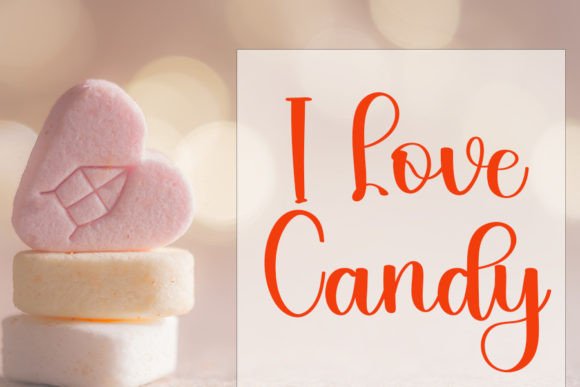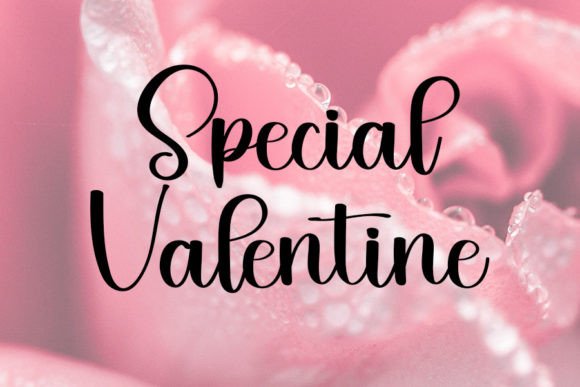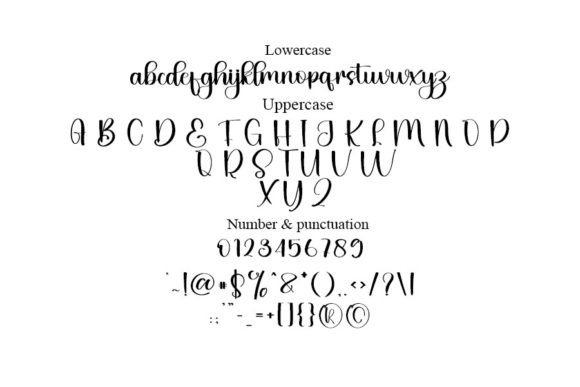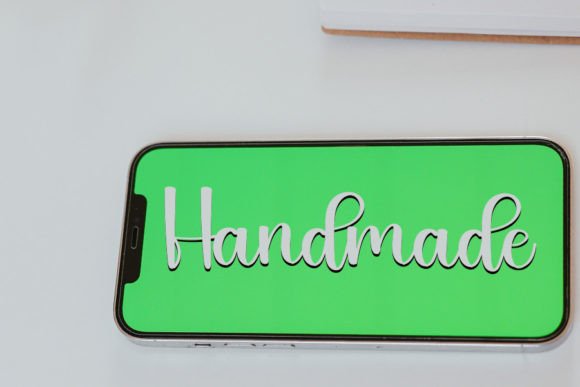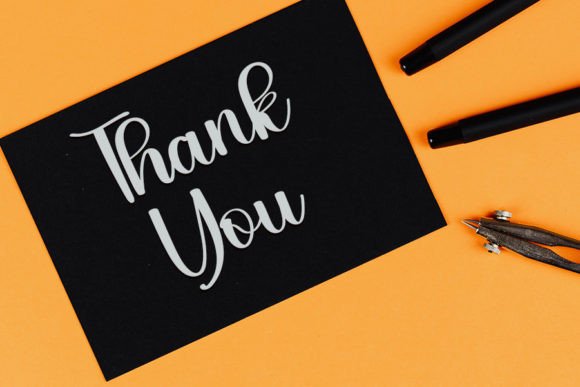
Introduction to Night Vacation Font
Have you ever found yourself daydreaming about your next creative project, only to be stuck on the perfect font to match your vision? I’m sure we’ve all been there, scrolling through font libraries, searching for that elusive perfect match. For me, it was a late-night browsing session that led me to discover the enchanting Night Vacation Font.
As a designer, I can attest that finding the right font can make all the difference in bringing your ideas to life. And that’s exactly what the Night Vacation Font does – it adds a touch of romance and whimsy to any project. With its versatility and high-quality design, it’s no wonder this font has become a go-to choice for designers looking to elevate their creative projects.
Key Features of Night Vacation Font
- Unique, hand-drawn design perfect for creative projects that require a touch of elegance and sophistication.
- High-quality, transparent background allowing for seamless integration into various design elements.
- Includes 1 font style, ideal for projects that require a consistent and cohesive look.
- Designed with a resolution of 300 DPI, ensuring crisp and clear text display in various sizes.
- Perfect for designers looking for a high-quality, unique font to elevate their creative projects.
Honest Review: Night Vacation Font
I recently had the chance to try out the Night Vacation Font, and I have to say it’s been a great addition to my design resource collection. The font’s unique, modern aesthetic is perfect for creative projects that require a touch of sophistication.
- ✨ High-quality design: The font’s crisp lines and clean typography make it a joy to work with.
- ✨ Versatile: I’ve used the Night Vacation Font for everything from digital invitations to social media graphics, and it always looks great.
- ⚠️ Limited language support: I found that the font only supports a limited number of languages, which may be a problem for international projects.
- ⚠️ No transparent background: While the font itself looks great, I wish it came with a transparent background option for easier integration with background images.
Overall, I’m really impressed with the Night Vacation Font. While it may have a few limitations, its high-quality design and versatility make it a valuable addition to any designer’s toolkit. Whether you’re working on a creative project or just looking for a new font to try out, I’d definitely recommend giving this one a shot.
Night Vacation Font